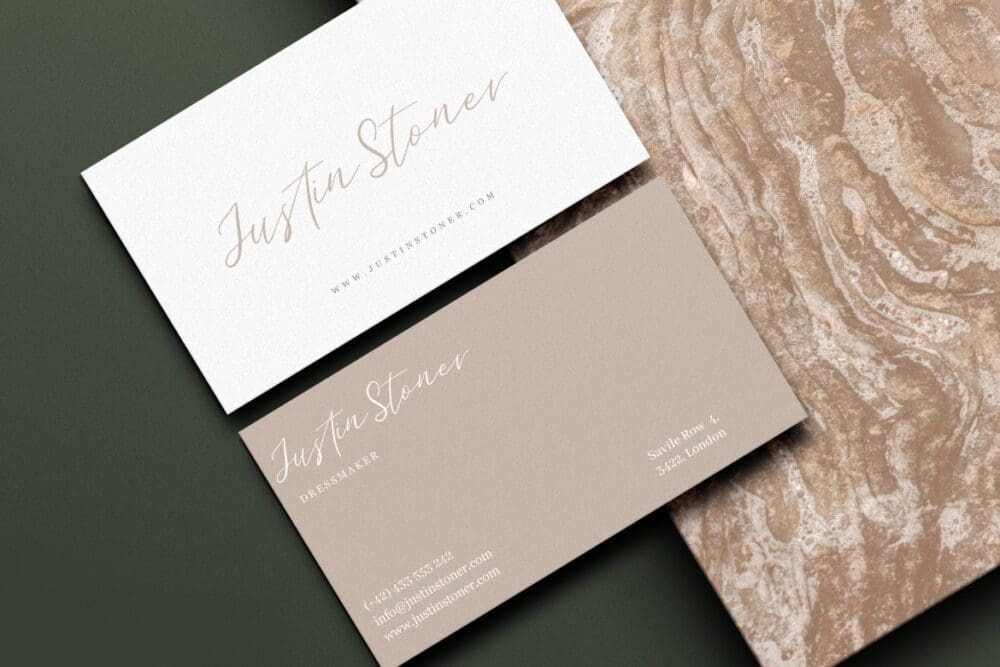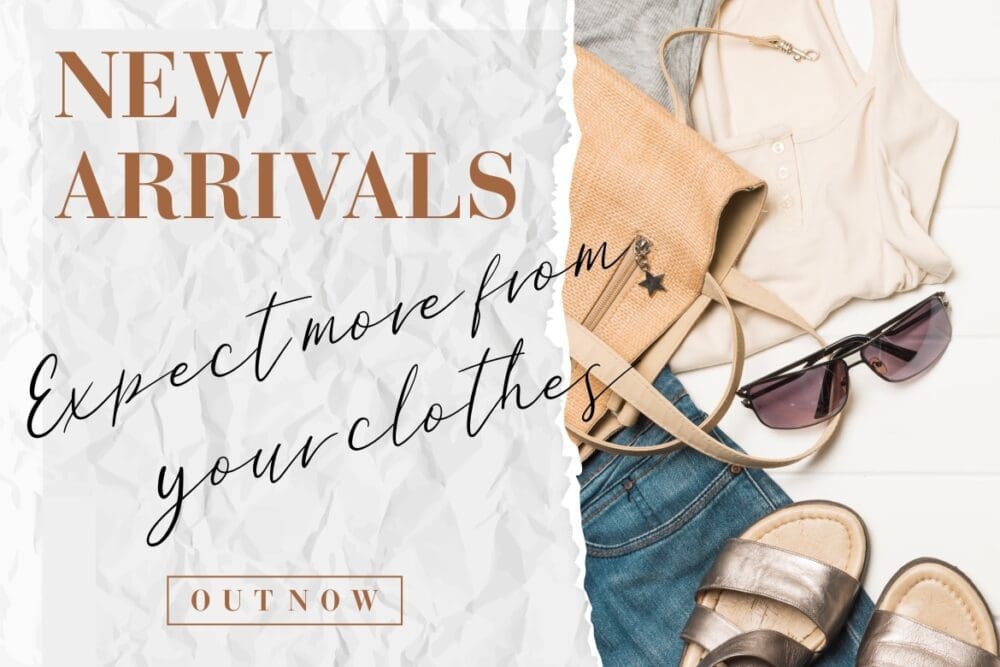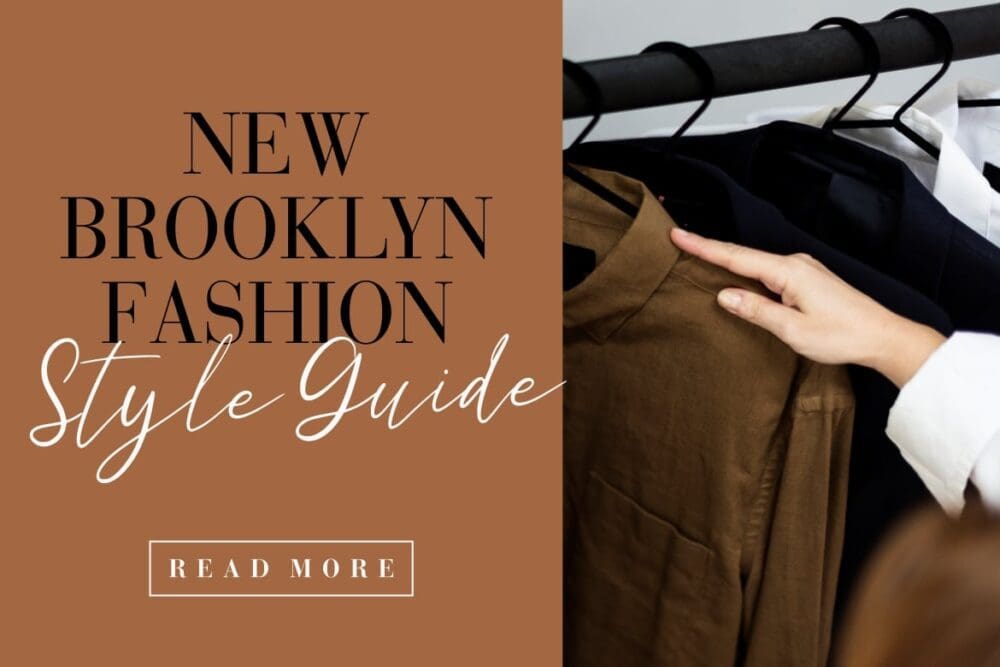
Halymoon Stylish Signature Font
Halymoon Stylish Signature Font. It looks elegant dan classy perfect for wedding invitations. Halymoon is perfect for branding projects, logos, wedding designs, advertisements, photography, invitation, stationery, and any projects that need handwriting taste.